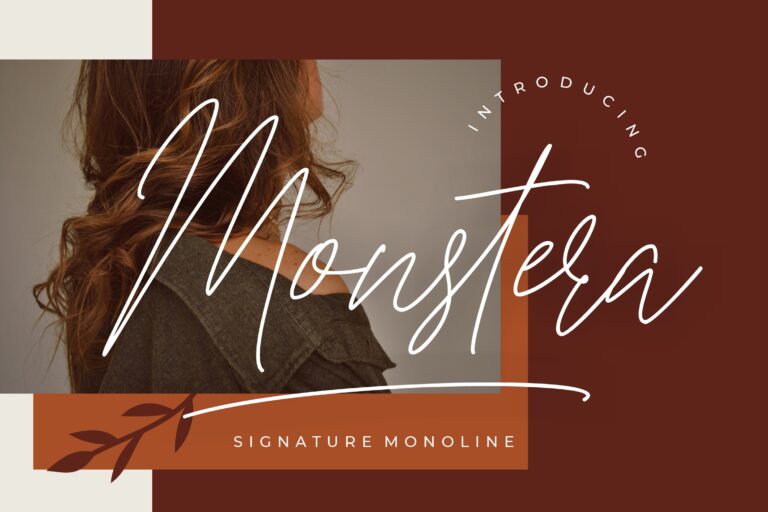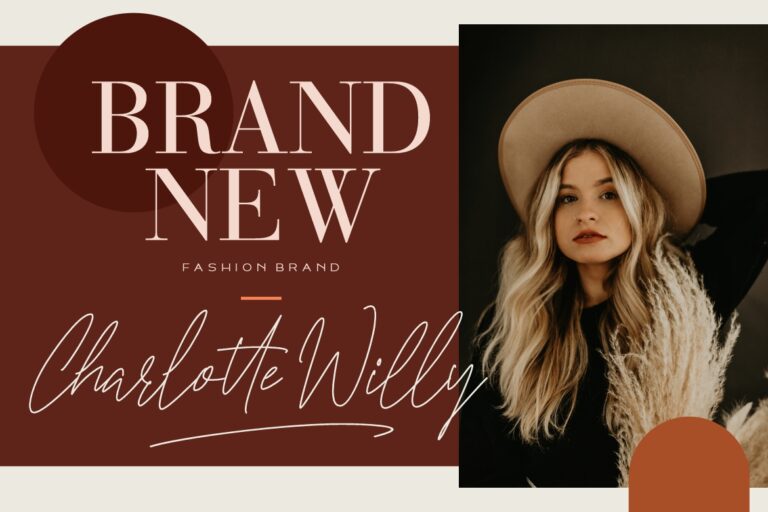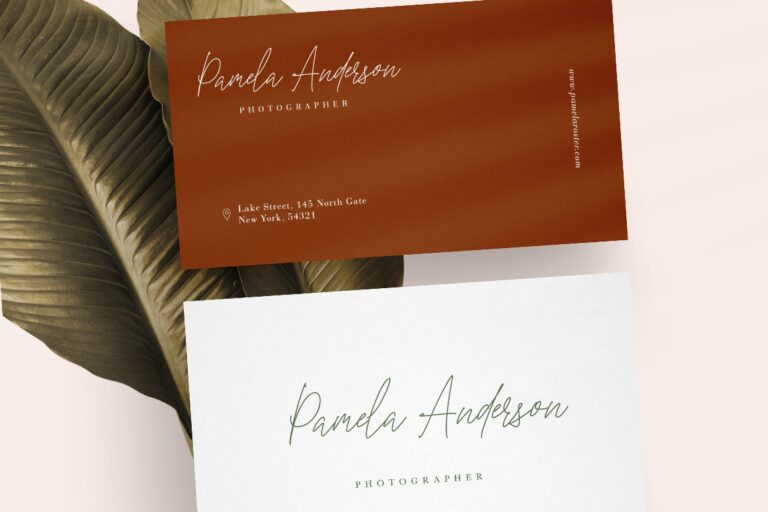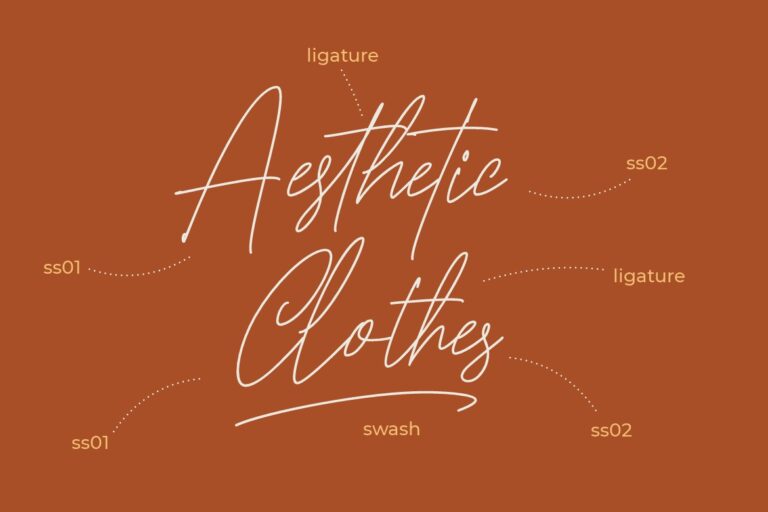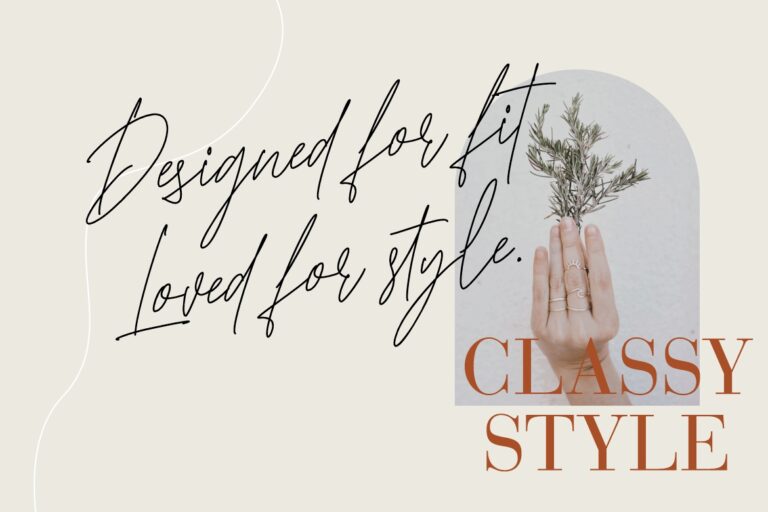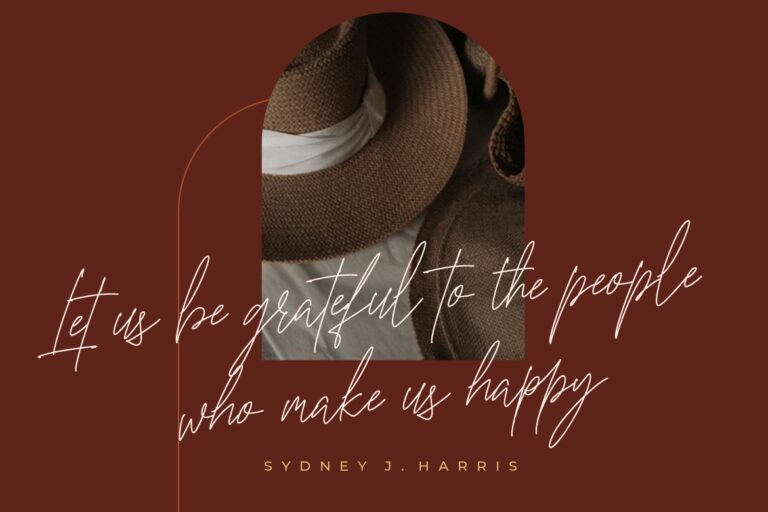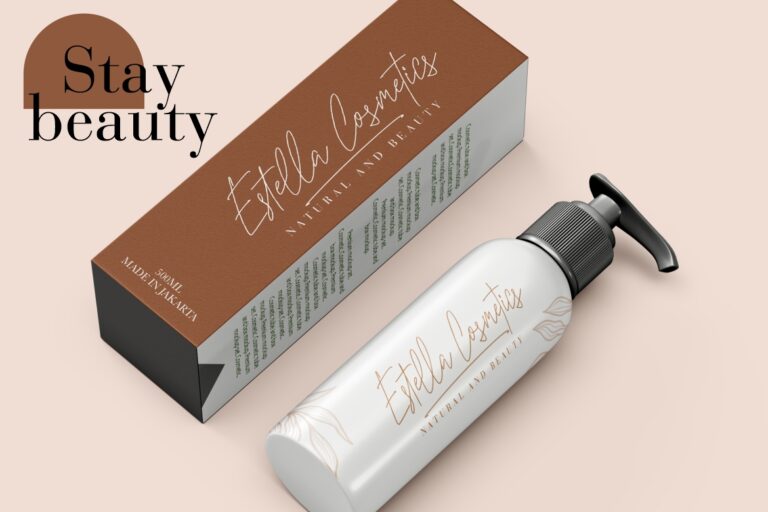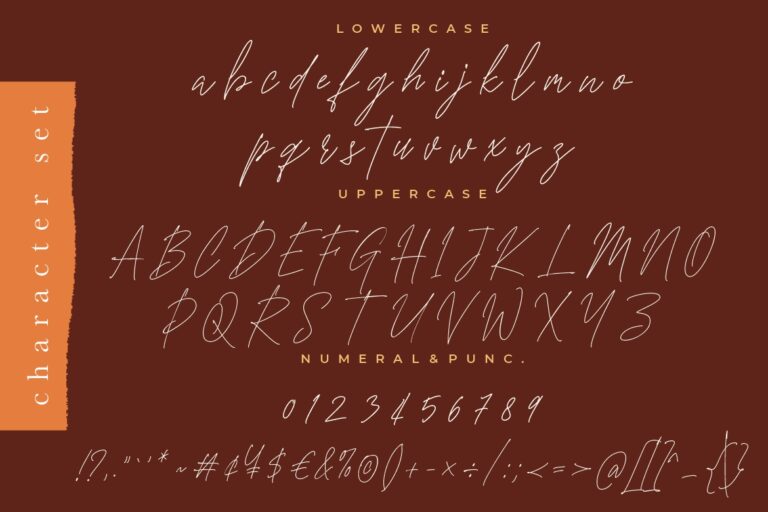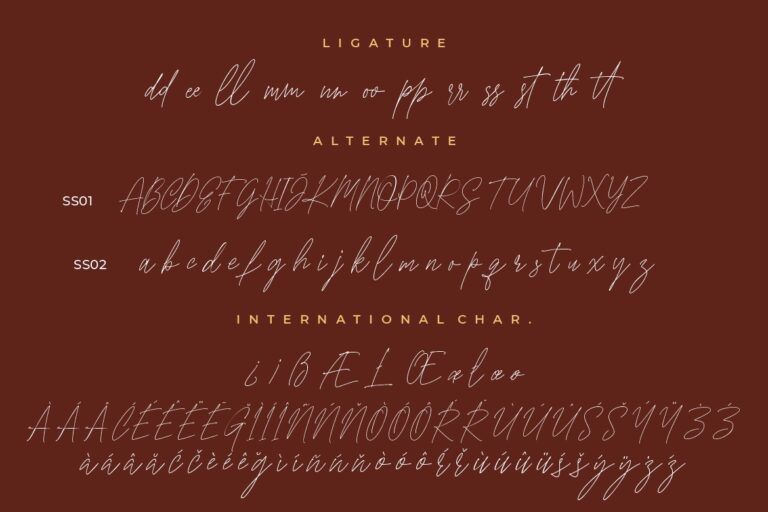
Monstera is signature script font with monoline style that looks classy and elegant.
Monstera is perfect for branding projects, logo, wedding designs, social media posts, advertisements, product packaging, product designs, label, photography, watermark, invitation, stationery and any projects that need handwriting taste.
- Ligature, Alternate & Swashes
- Fonts include multilingual support for; Afrikaans, Albanian, Czech, Danish, Dutch, English, Estonian, Finnish, French, German, Hungarian, Italian, Latvian, Lithuanian, Norwegian, Polish, Portugese, Slovak, Slovenian, Spanisch, Swedish.
Monstera Signature Monoline